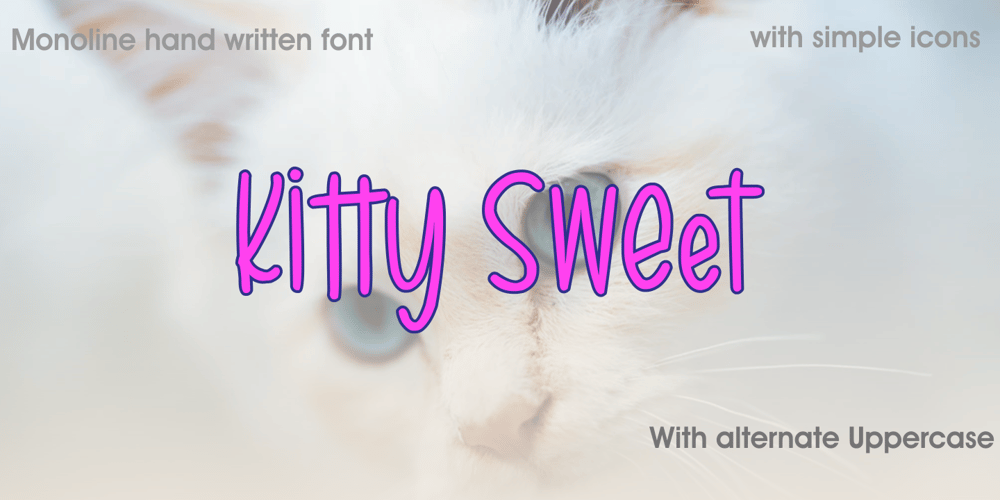
Kitty Sweet Font Family was designed by Zamjump and published by Zamjump. Kitty Sweet contains 1 styles and family package options. Introducing my new monoline handwriting font = Kitty Sweet = It’s perfect for creating quotes, logos, or just adding a handmade touch to any project. Equipped with ligatures and alternatives for uppercase letters, made especially for those of you who want to be simple and make every simple job easier.